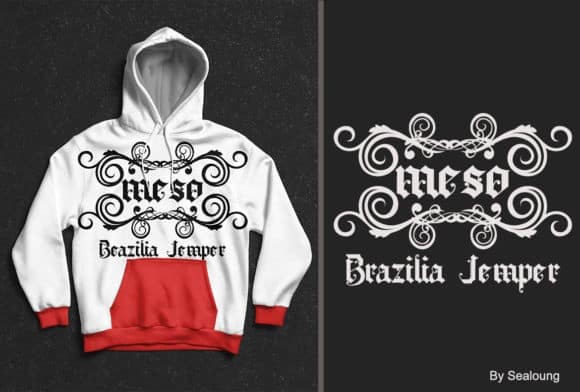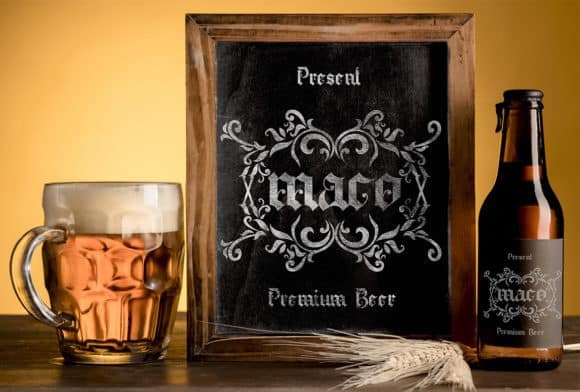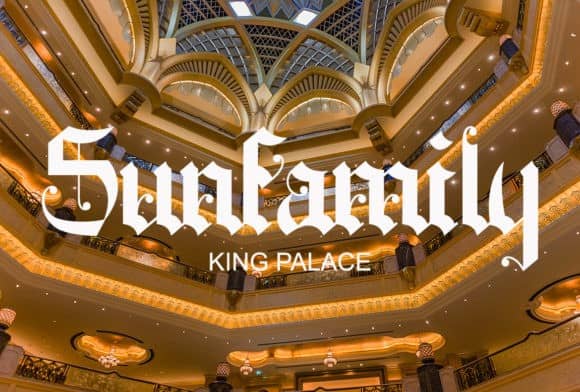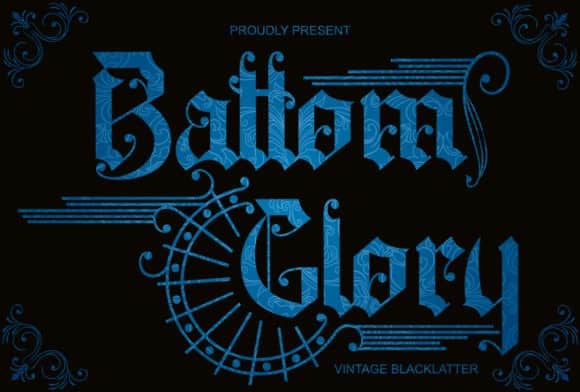
Battom Glory Blackletter Font
Battom Glory Blackletter Font is a typeface inspired in tattoo letters, chicano culture and street art. Made from font designer named Sealoung. It’s a bold and distinct blackletter font. Add this font to your creative ideas and notice how it will make them stand out! It works well with normal size text, but it works even better for large displays, short words, or even just to incorporate a few or single characters in a design. Suitable for many creative products & tattoo designs, like posters, t-shirt, street wear, logo, signage, headlines, etc.